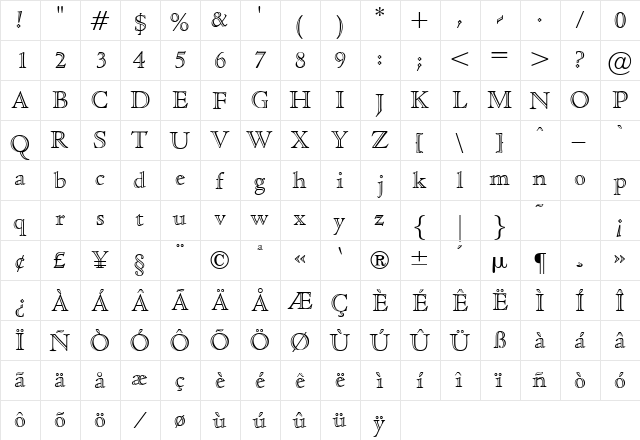
Claustrum Regular
Design Context for Claustrum Typeface
Claustrum takes a measured approach to typography — its balanced proportions and neutral character make it a reliable workhorse for both digital and print work.